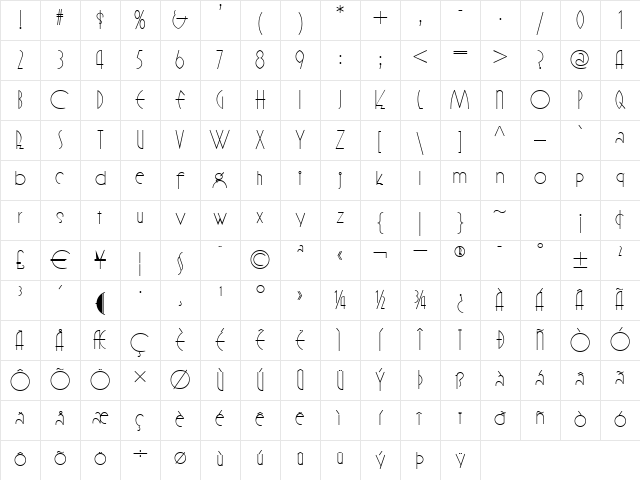
OKChoraleNF Regular Free Font
OKChoraleNF Regular
Complete OKChoraleNF Regular glyph index. Displaying only characters natively supported by OKChoraleNF Regular font.
Design Context for OKChoraleNF
OKChoraleNF is a composed and adaptable typeface that performs quietly and consistently across a wide range of design contexts.